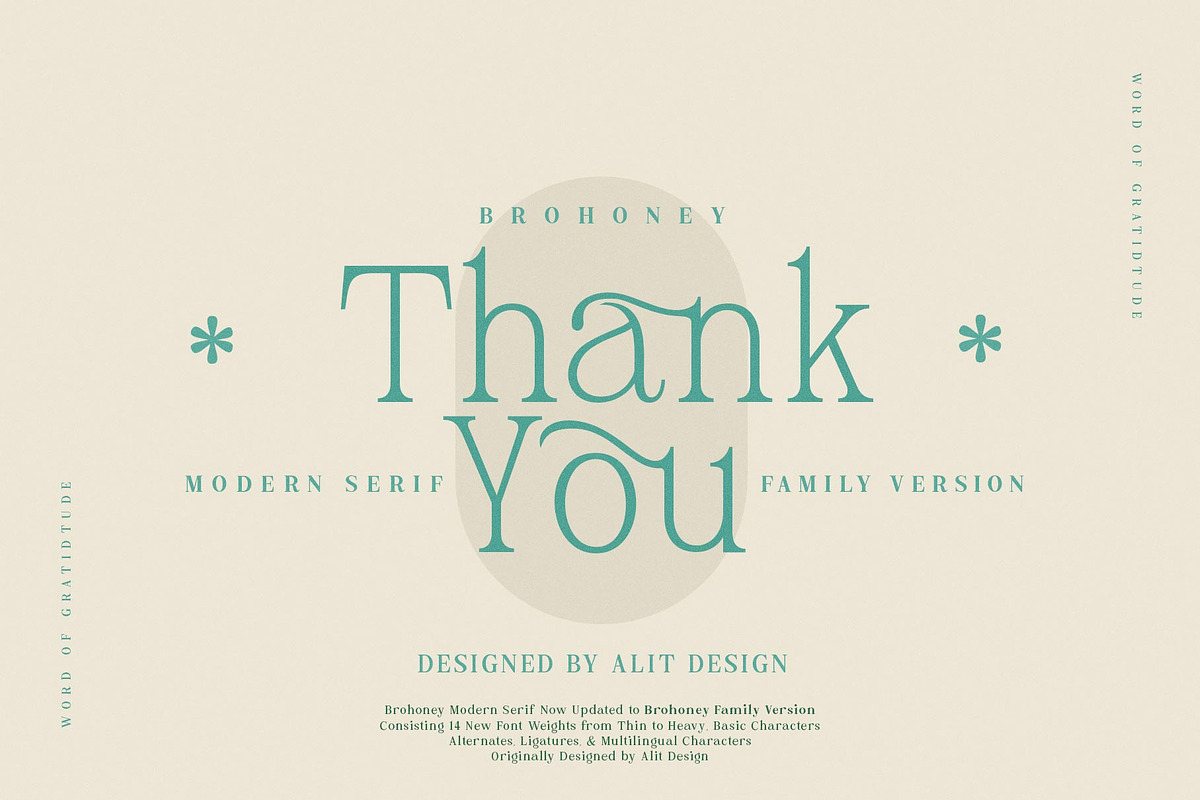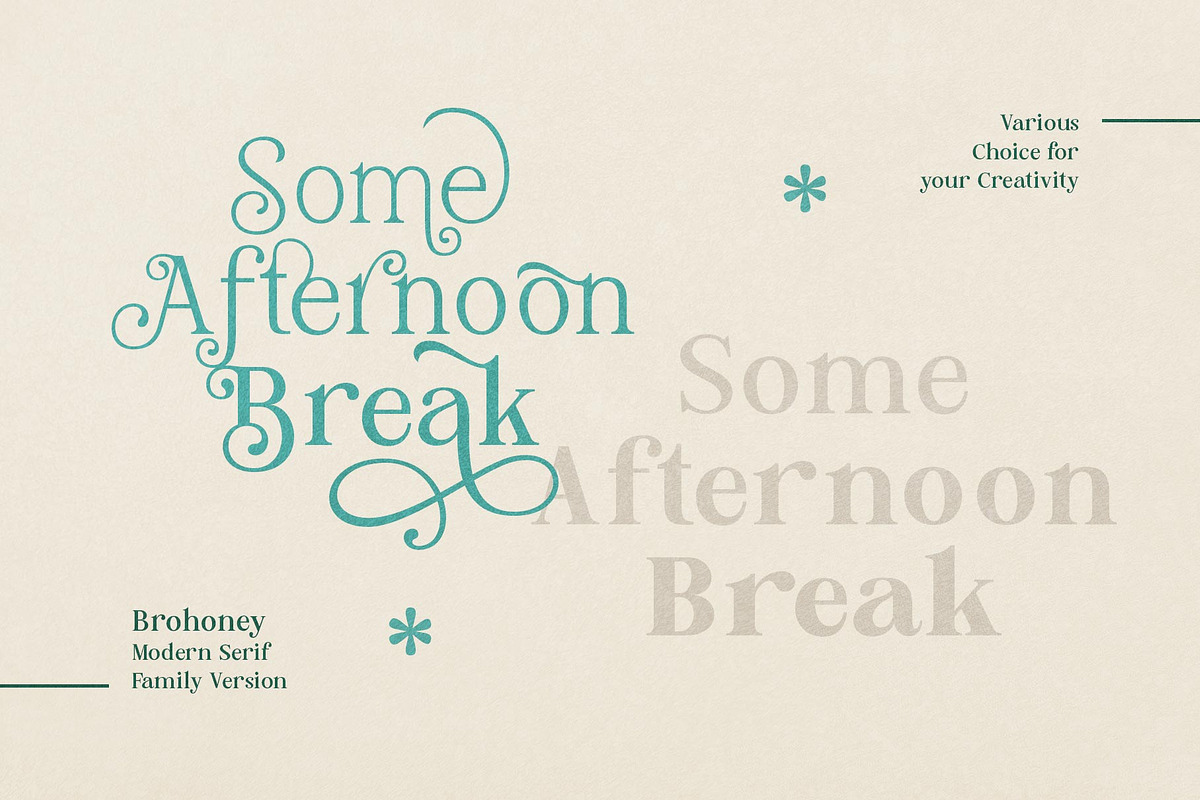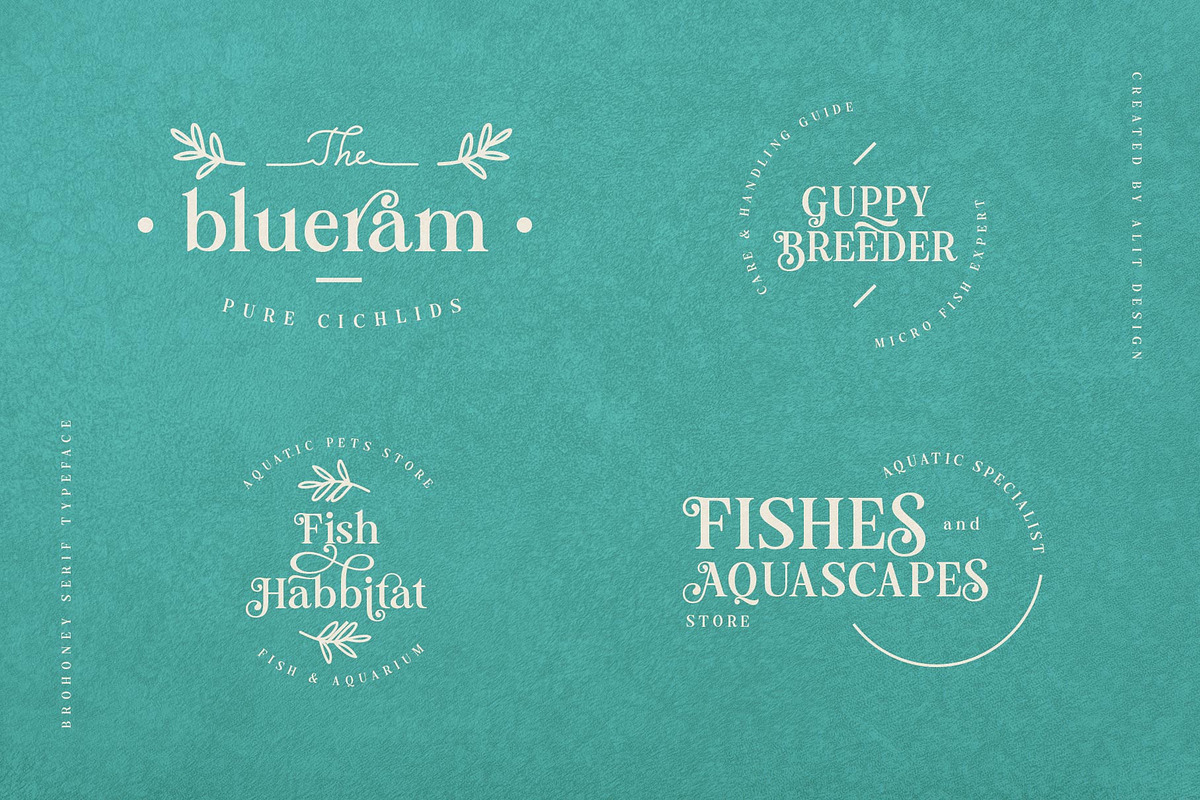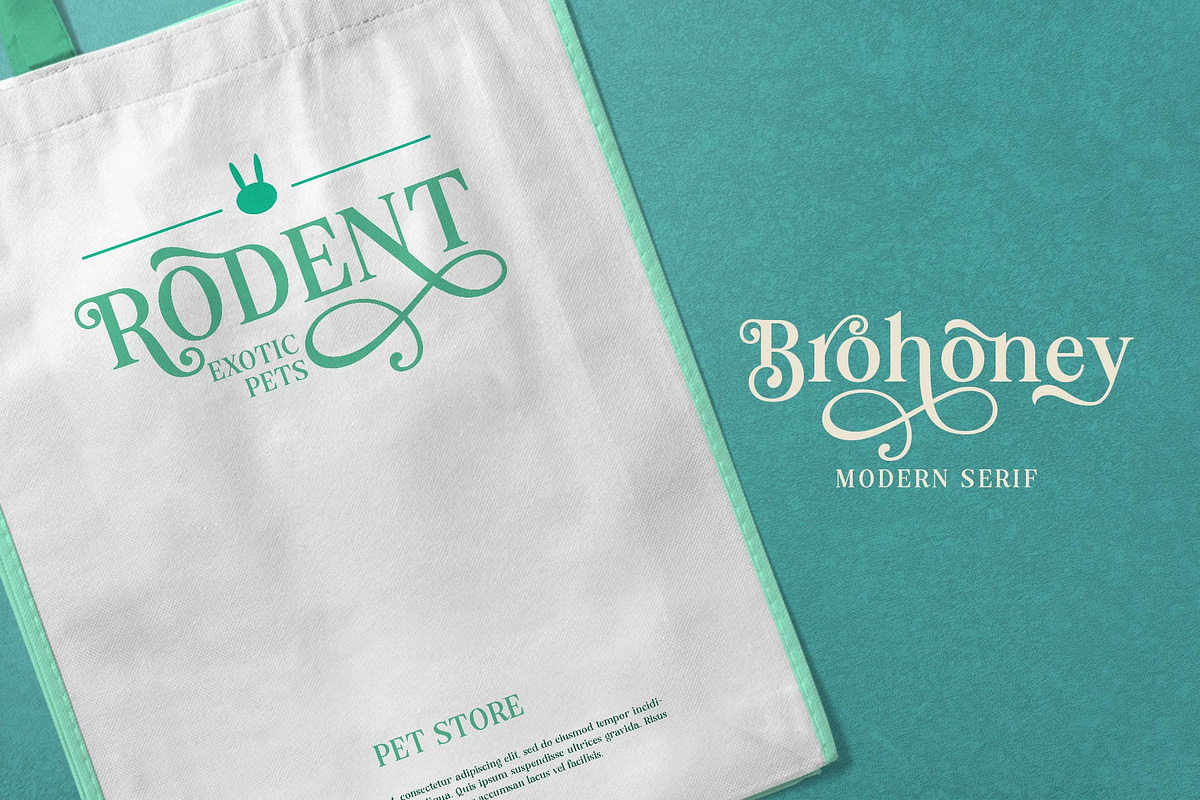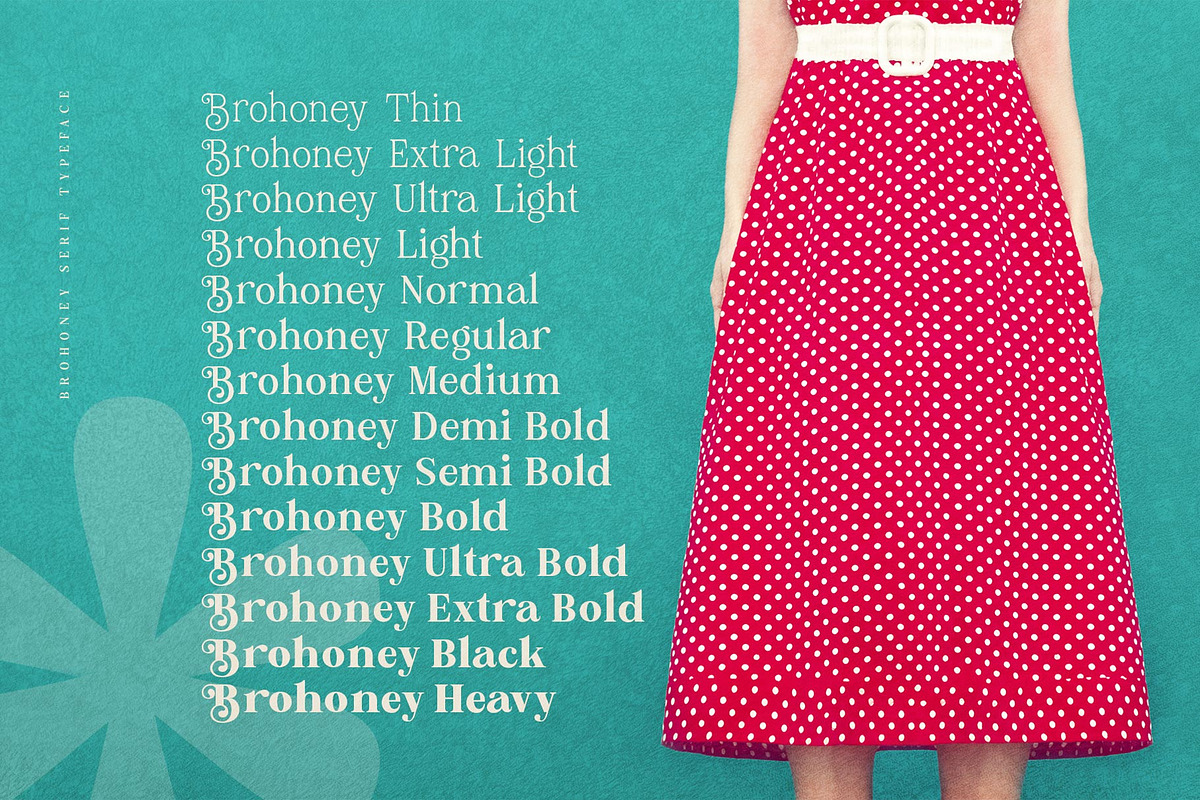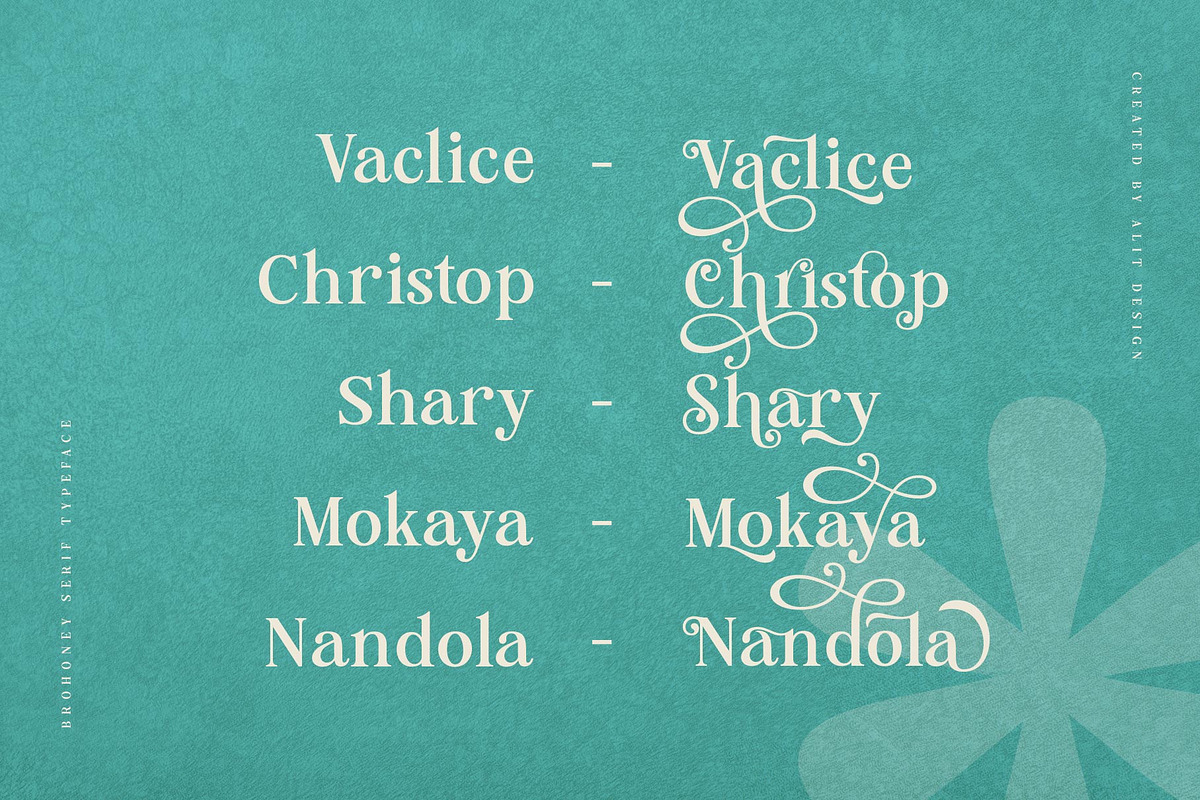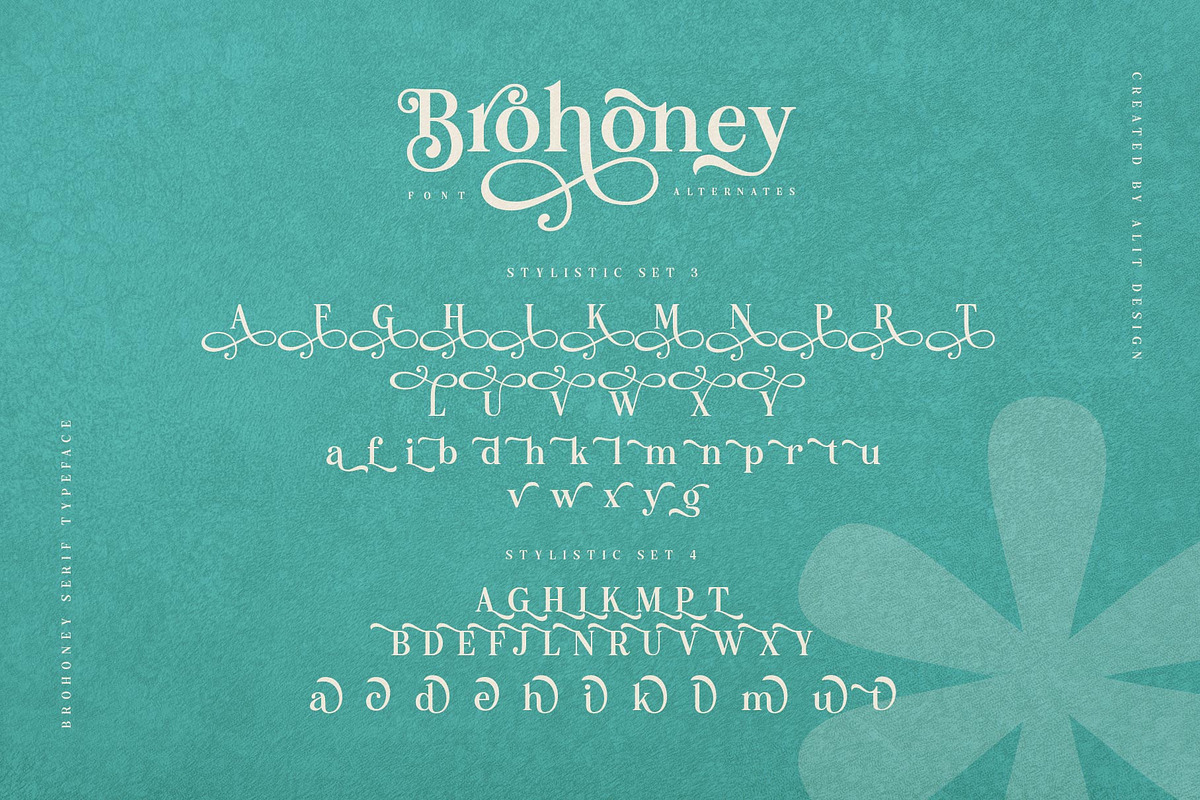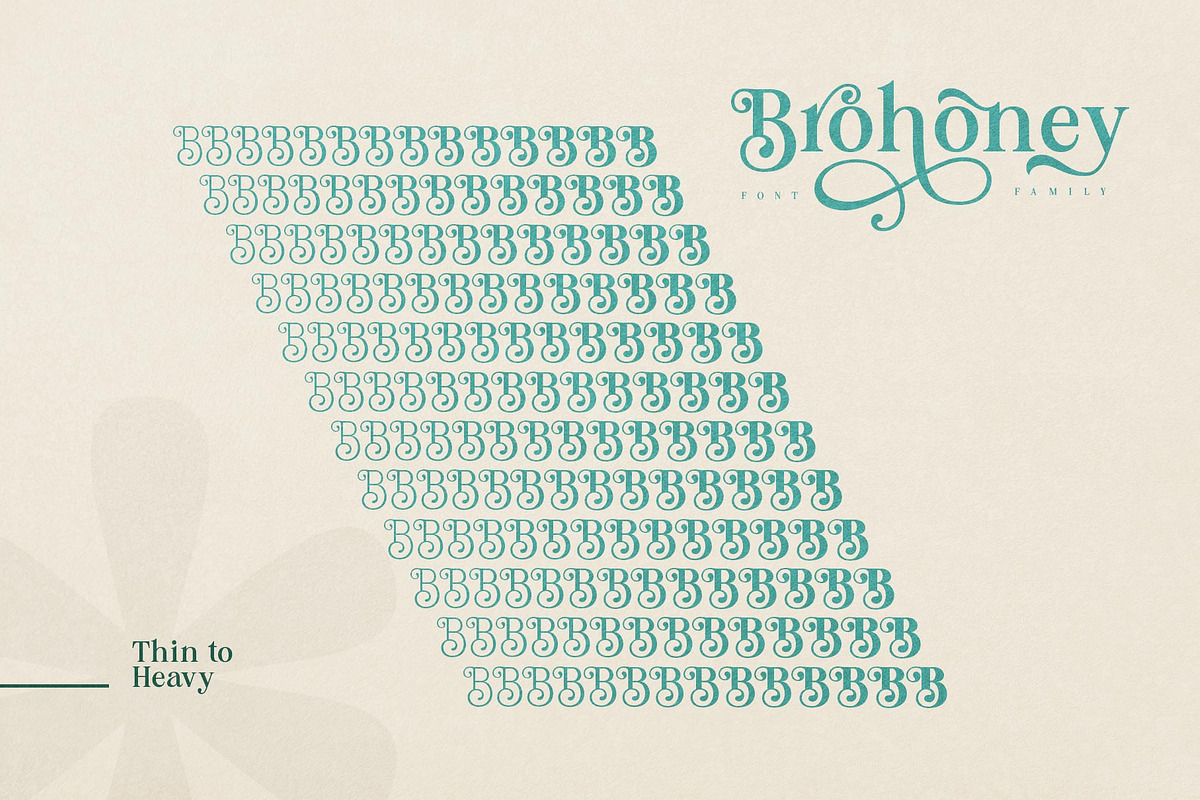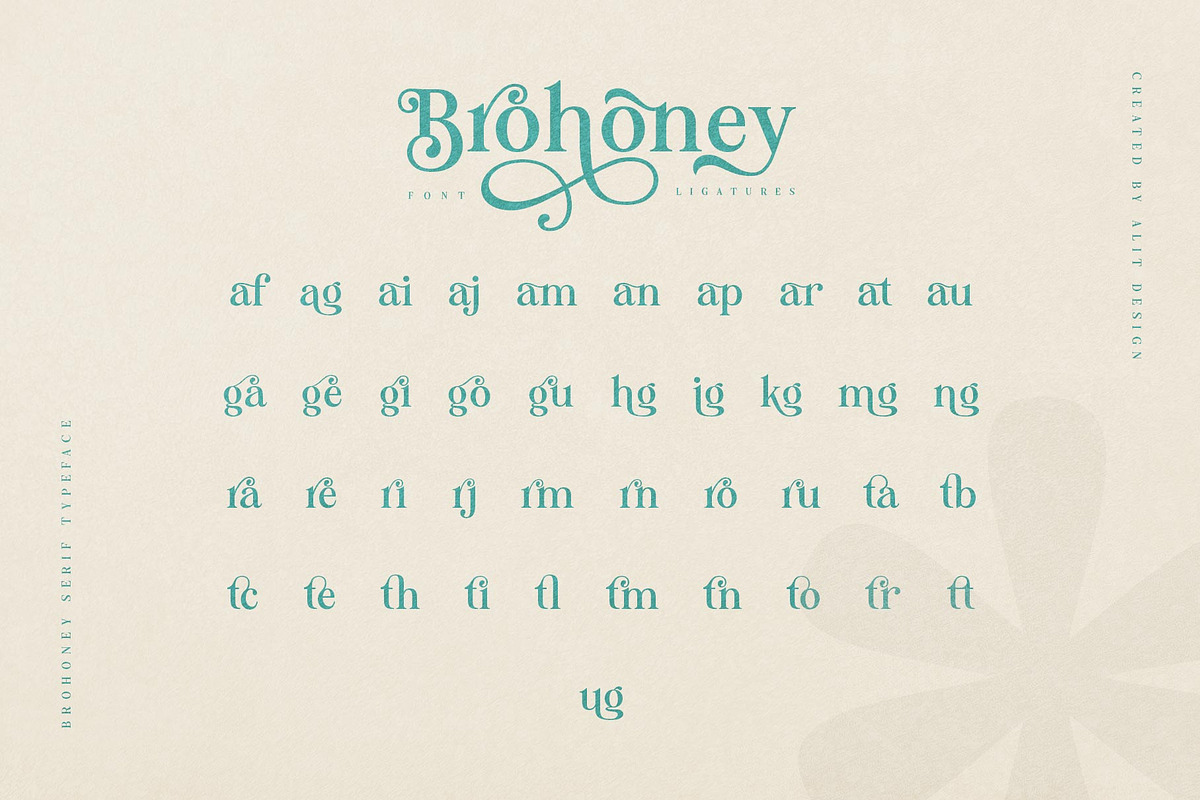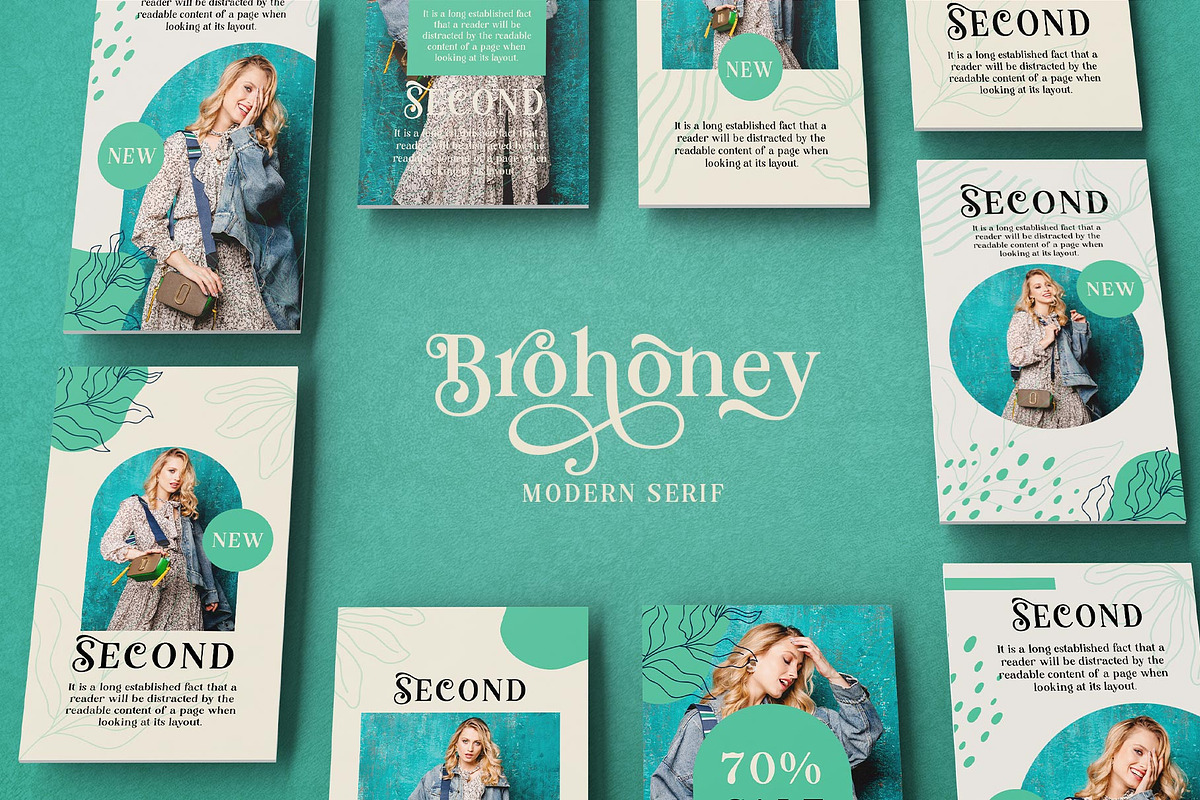
Brohoney Modern Serif Typeface
The Brohoney font is inspired by an elegant serif styled font made with elegant swash and limp curves that make any design unique and elegant. Brohoney has many alternative characters that you can choose easily by using an application that supports opentype glyphs, besides that Brohoney also has 14 families from thin to heavy that you can use for body text or header text.
Brohoney is very suitable for making designs with elegant, luxurious, modern and simple concepts.